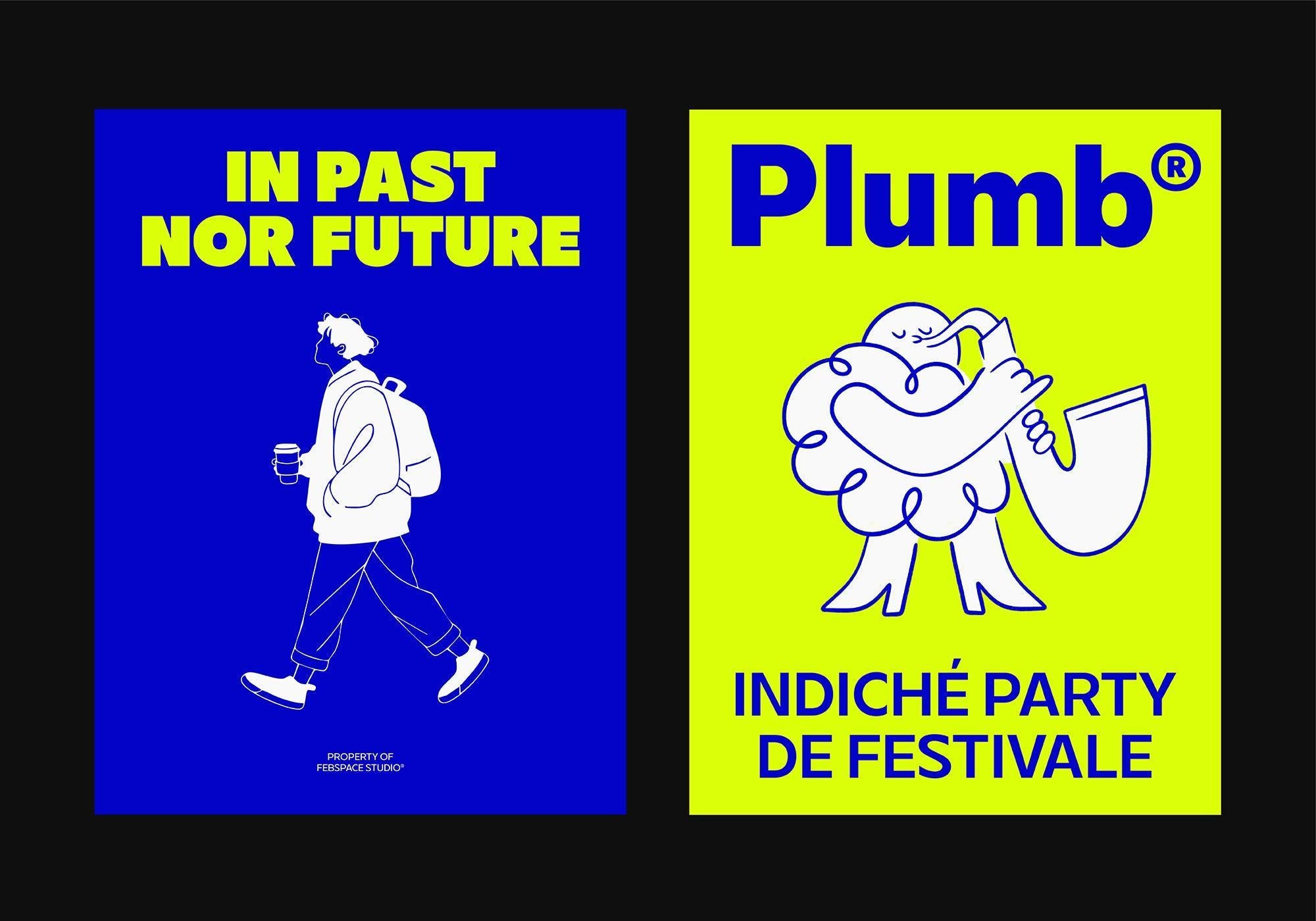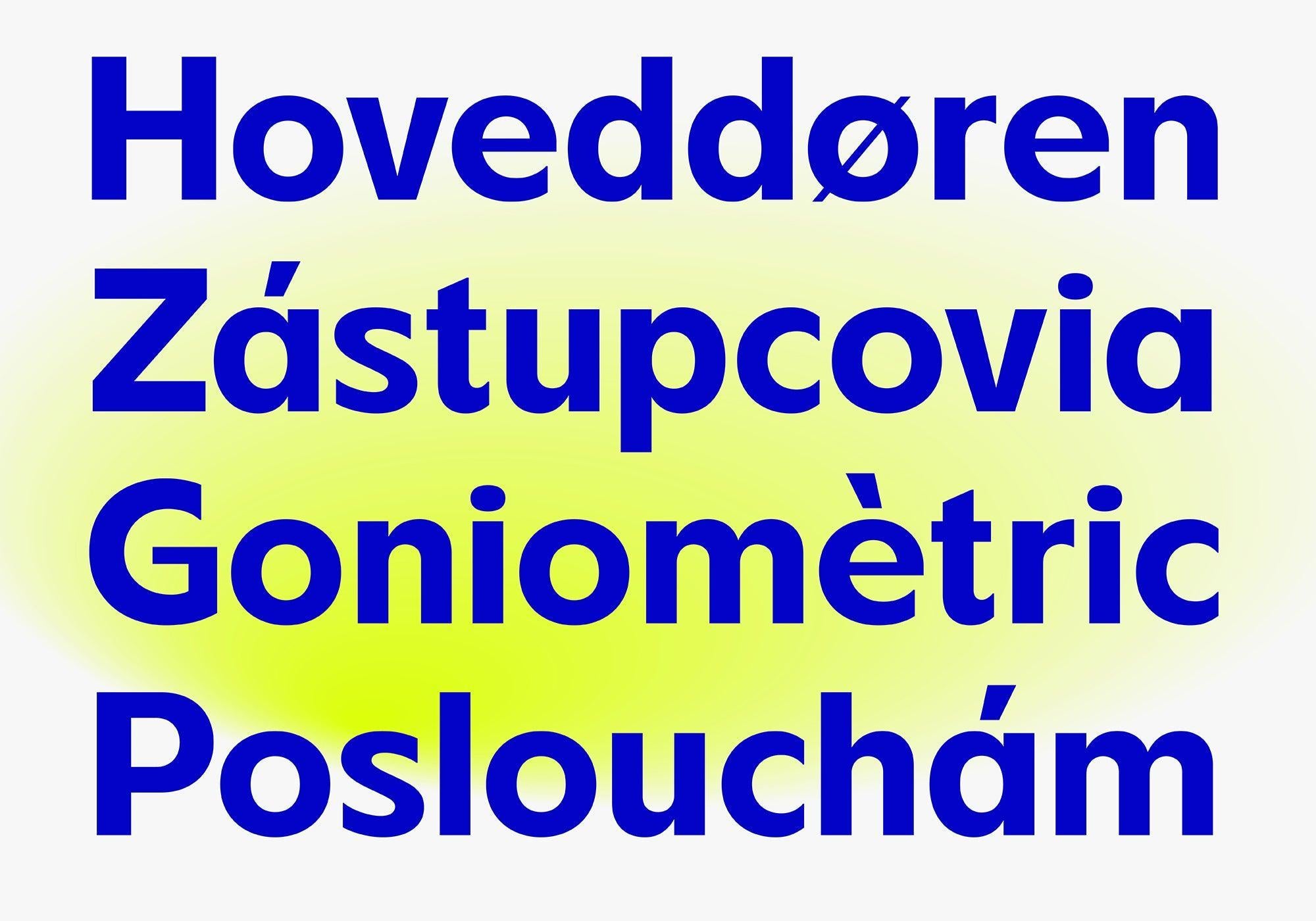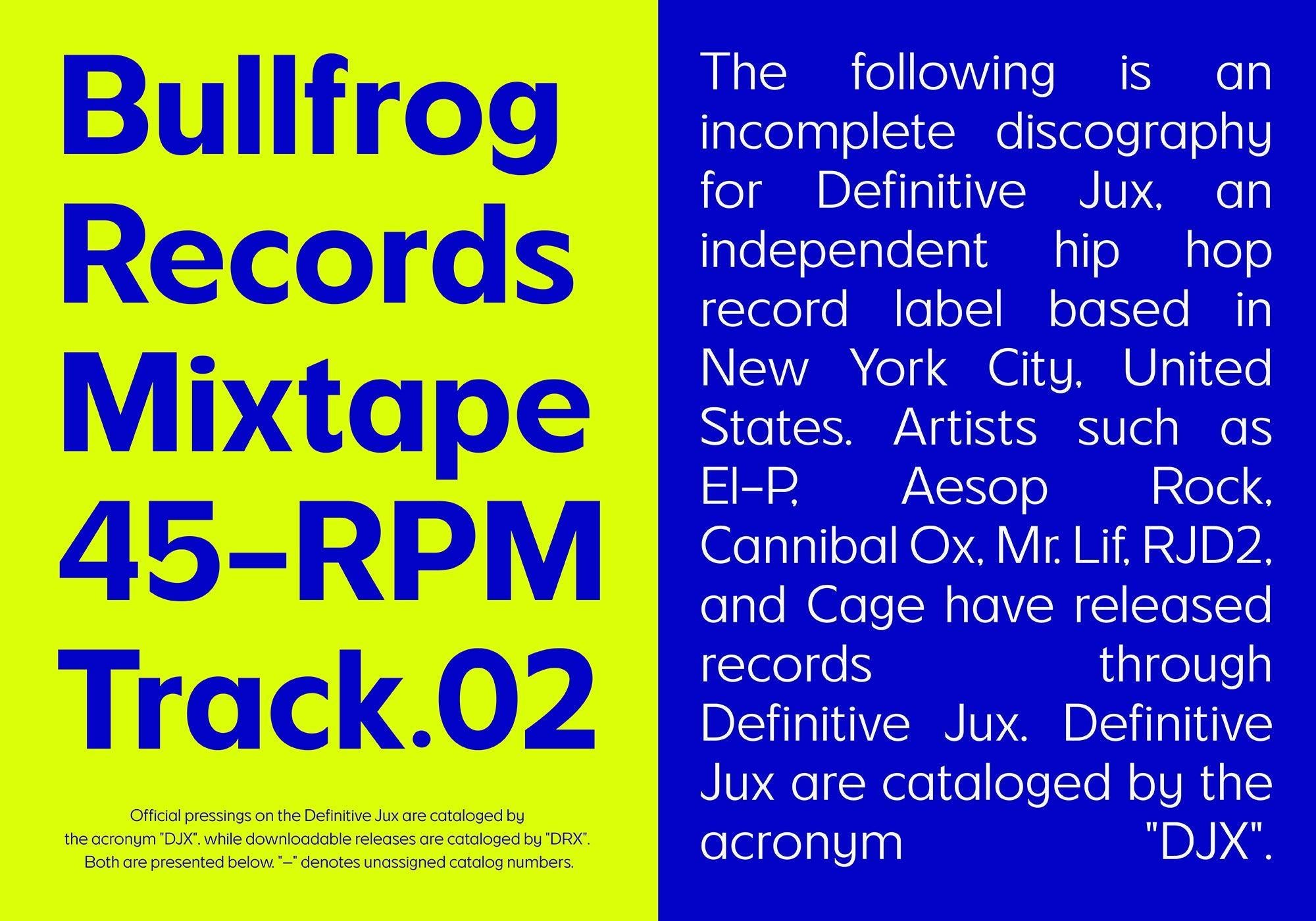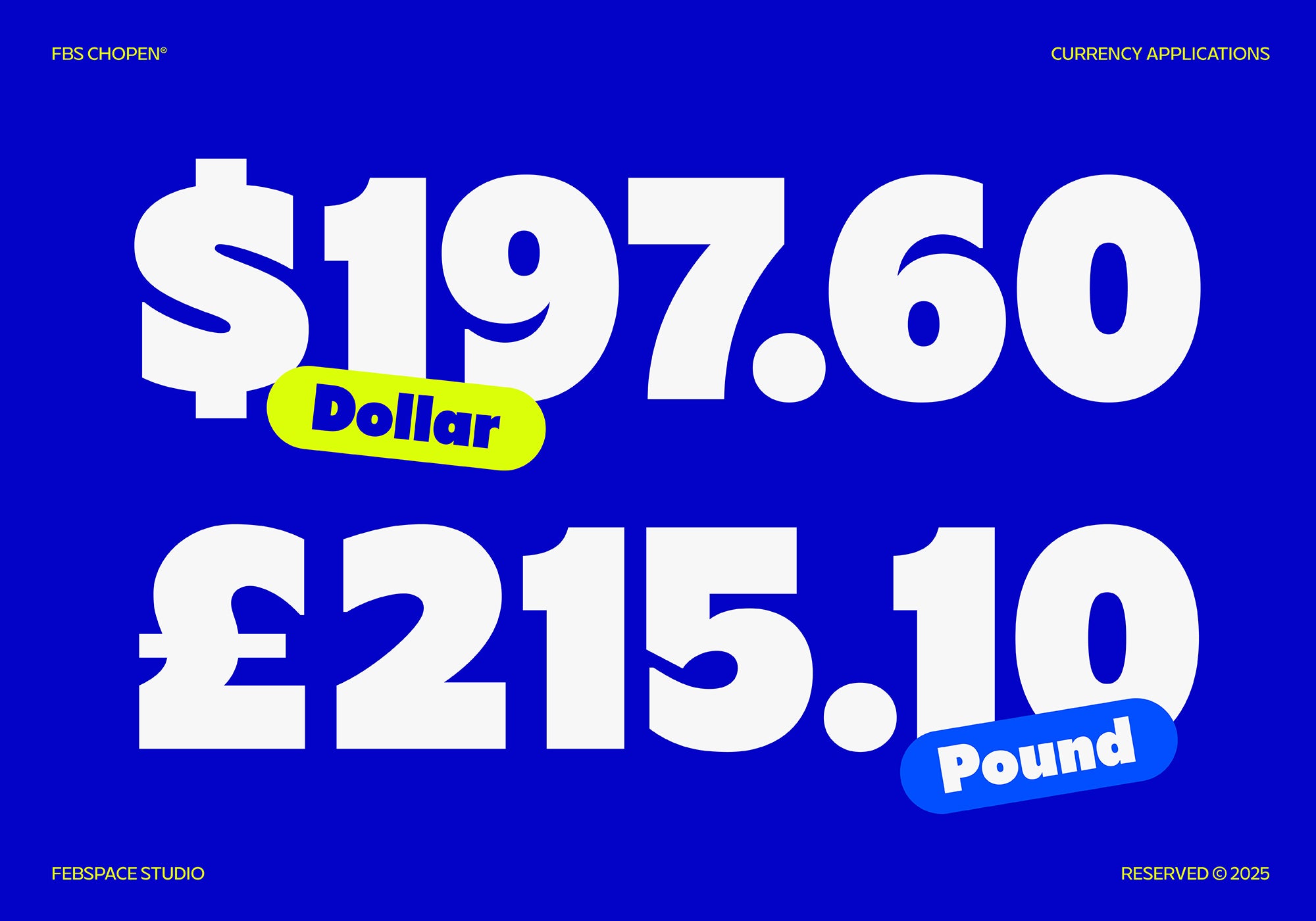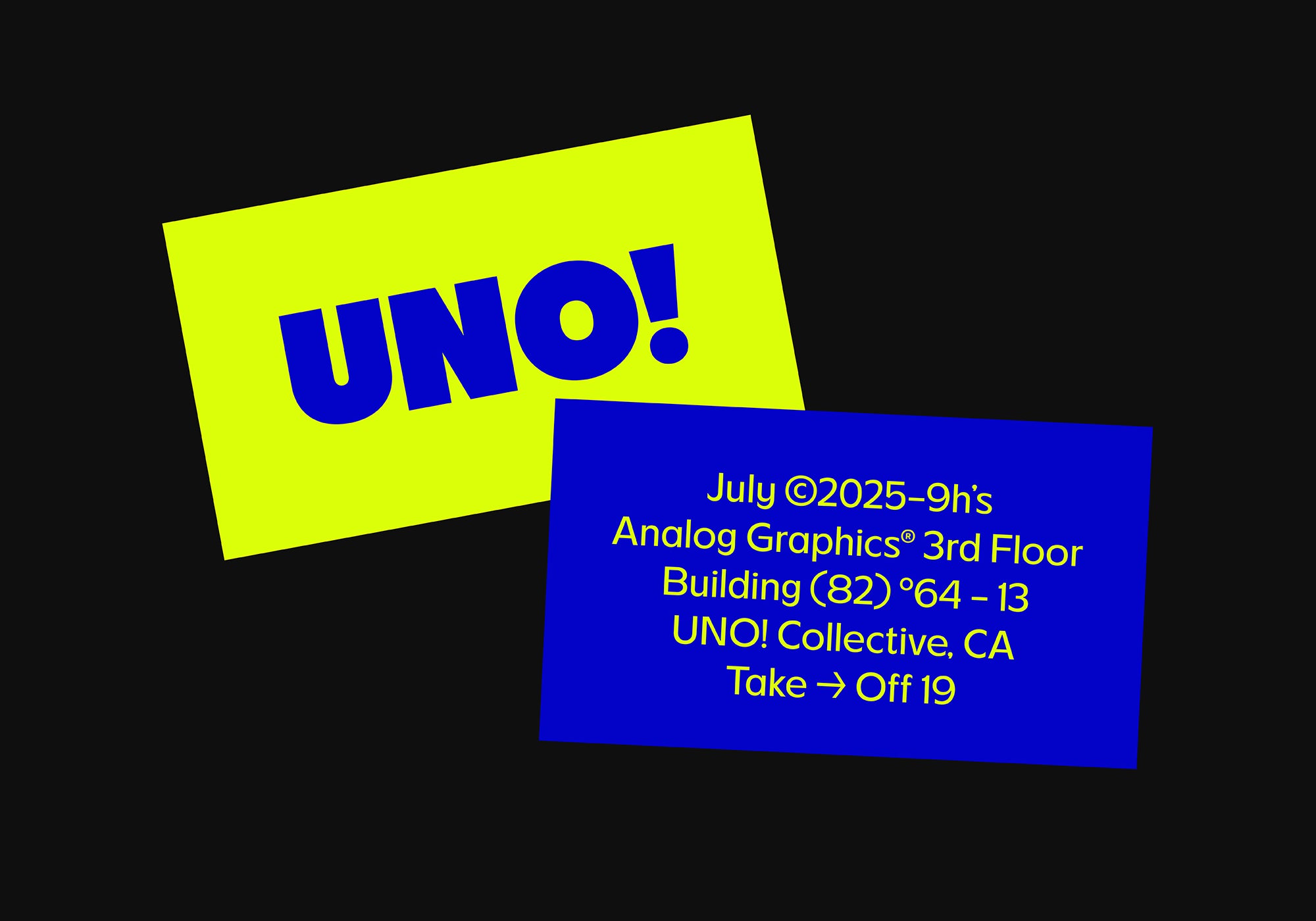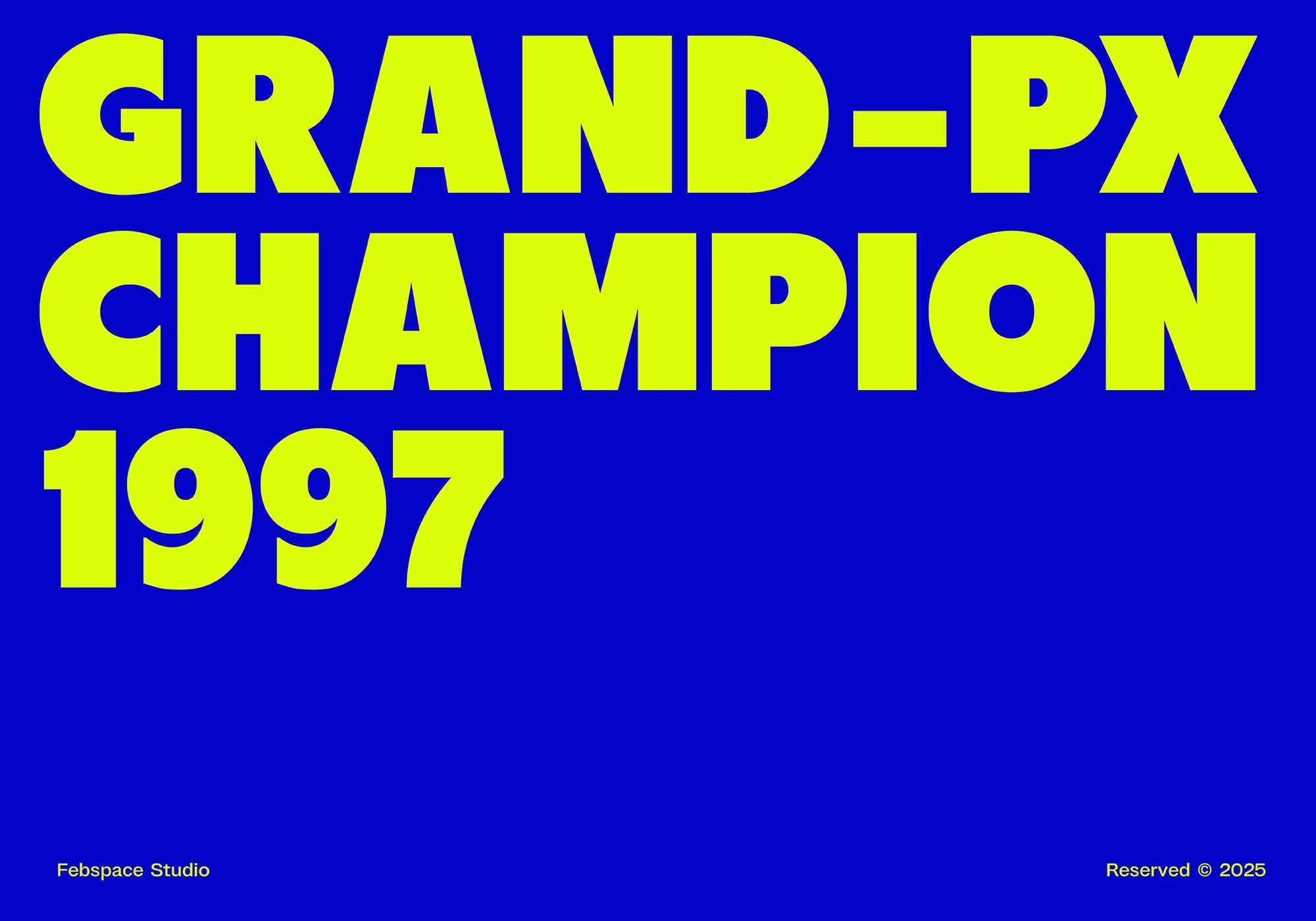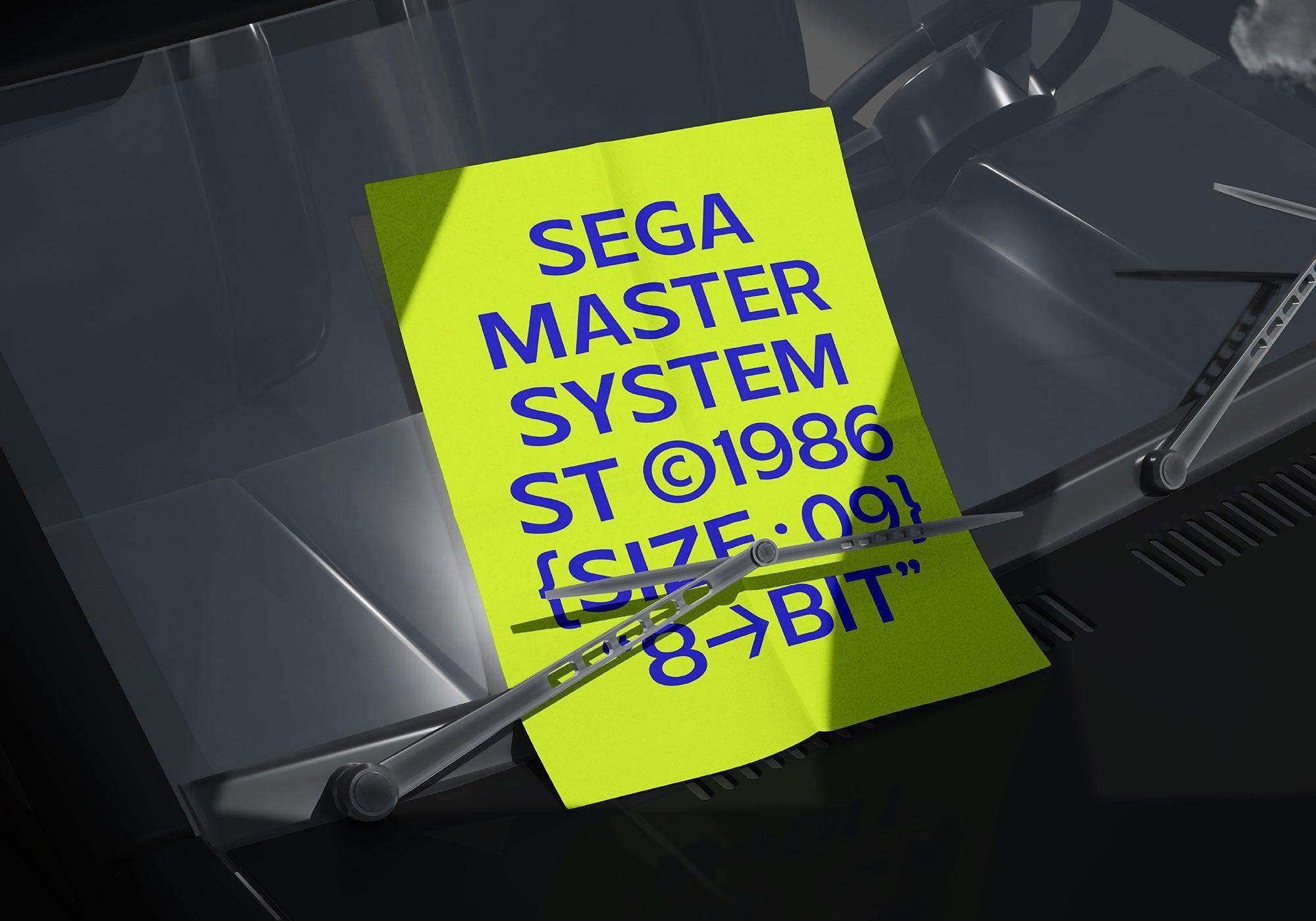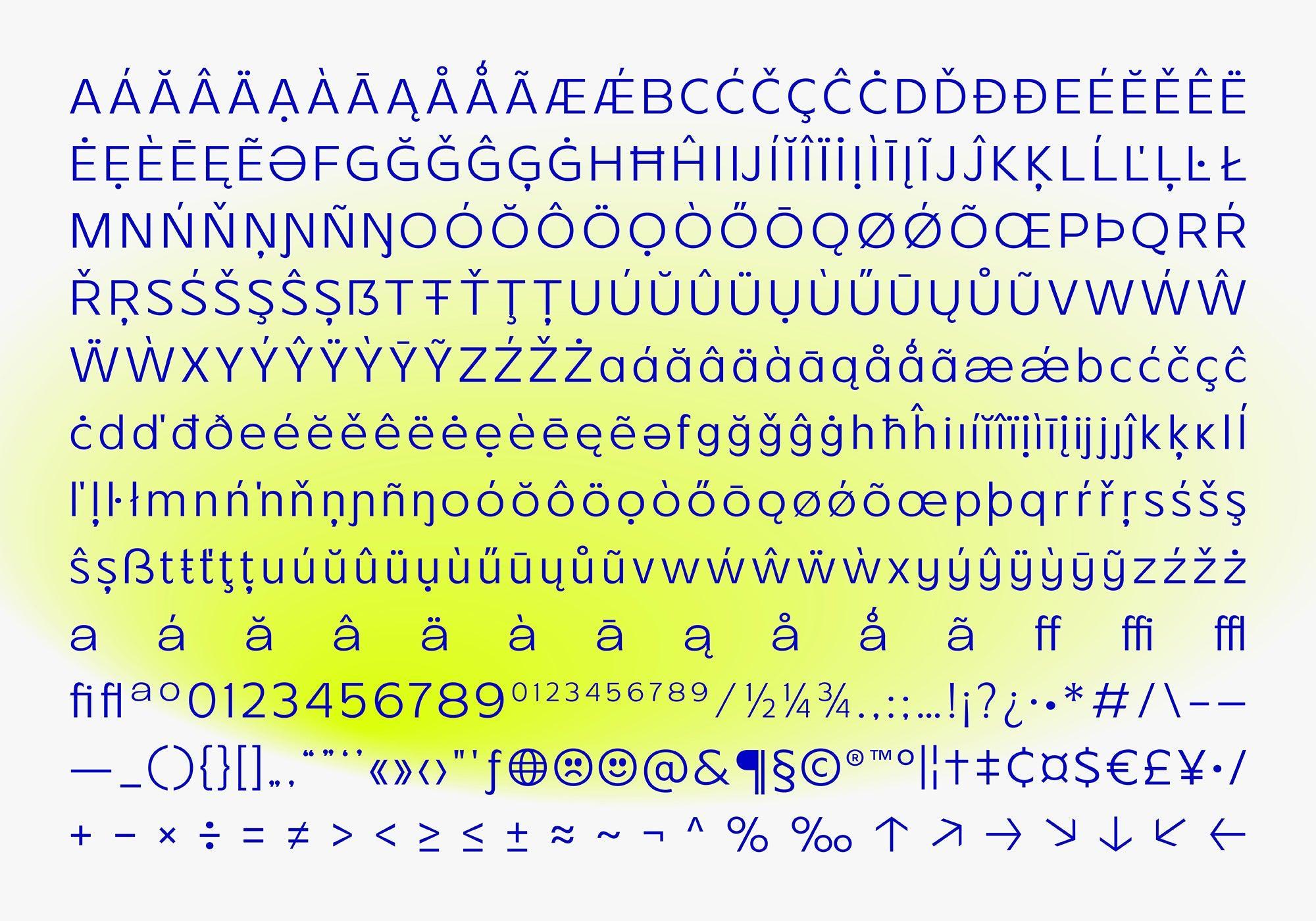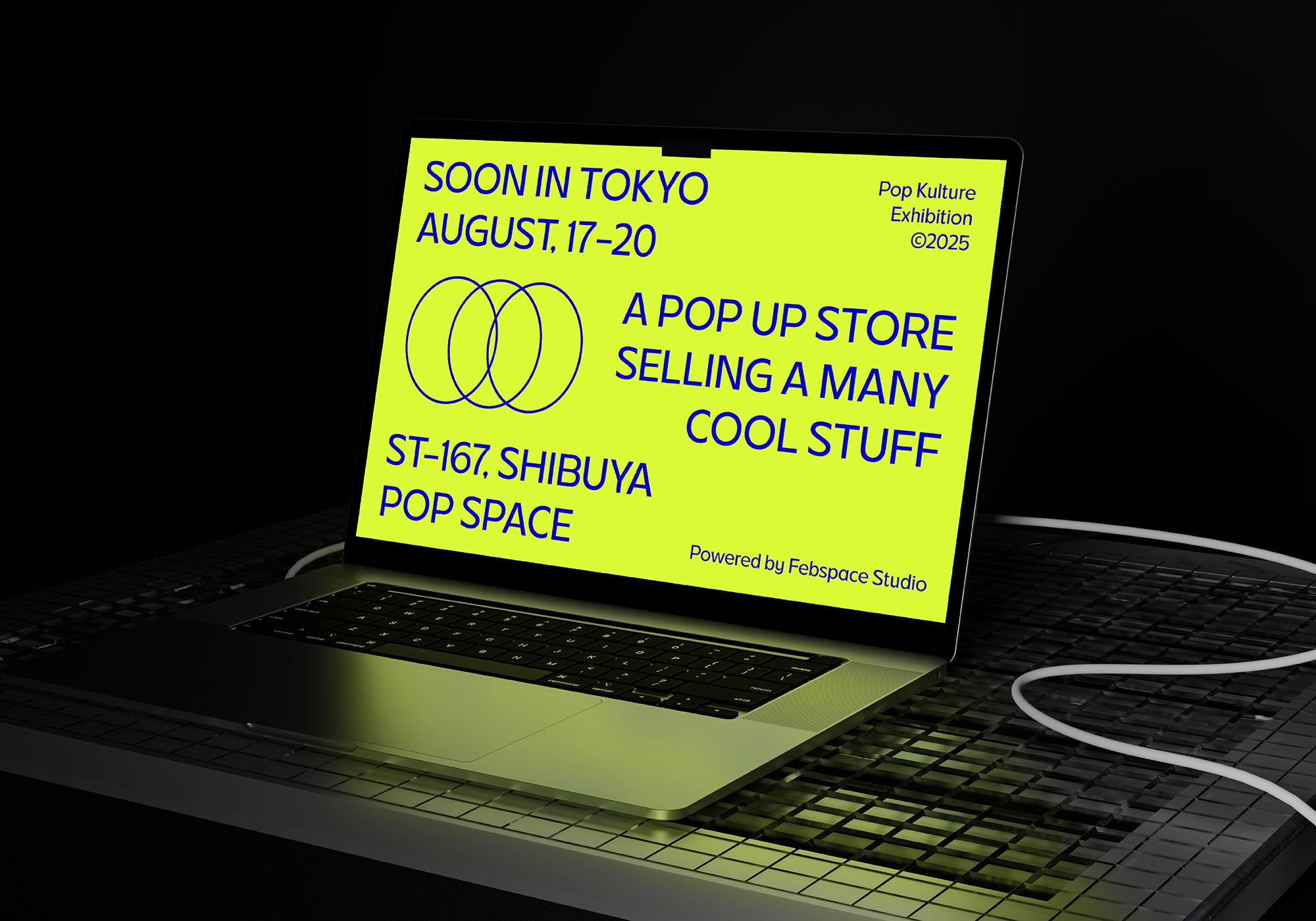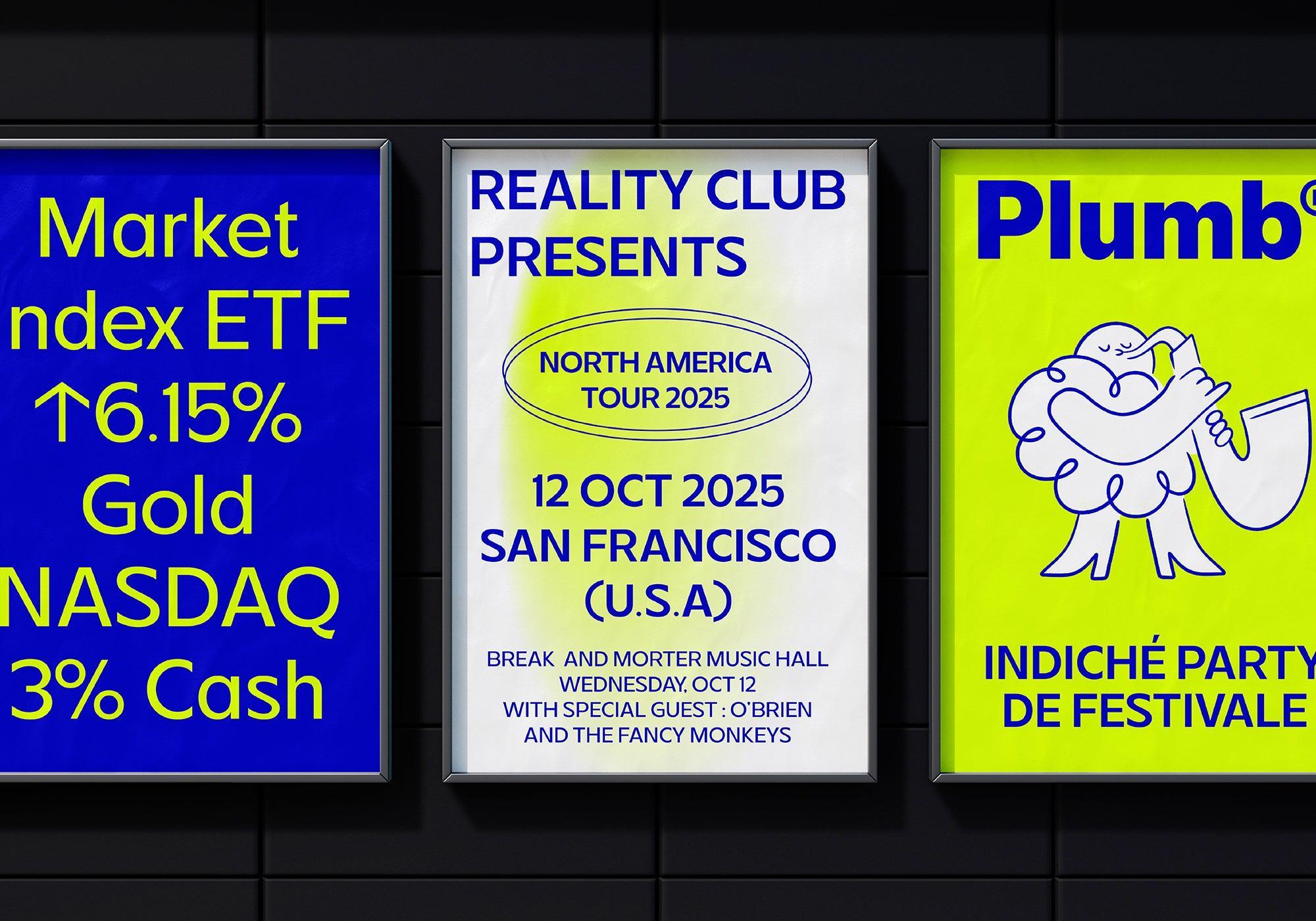
FBS Chopen - Font Family
FBS Chopen is a geometric sans-serif font family that combines retro 80's aesthetics with a modern minimalist design. It includes seven weights and over 431 glyphs, featuring OpenType capabilities and multilingual support, making it suitable for a variety of digital and branding applications.
Ideal for modern branding and minimalist design projects. Perfect for corporate identities, user interfaces, posters, and album covers, ensuring a clean and legible aesthetic that balances style with functionality.